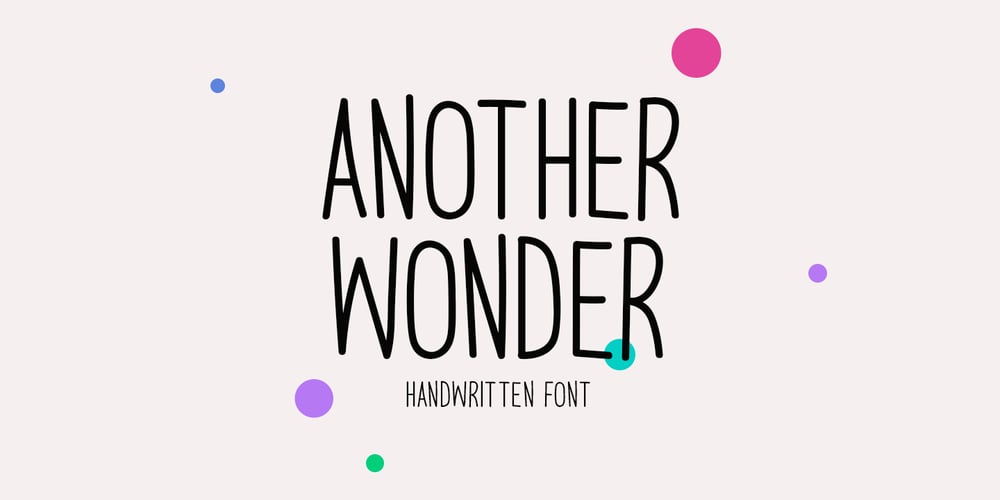
Another Wonder
Another Wonder font
Another Wonder Font Family was designed by Md Shohail Bhuian and published by Seemly Fonts. Another Wonder contains 1 styles and family package options. Another Wonder is a sweet and simple handwritten font. This font is ideal for stationery, logos, t-shirts, papers, print designs, website headers, picture frames, flyers, album covers, posters, image sliders, and many other things.